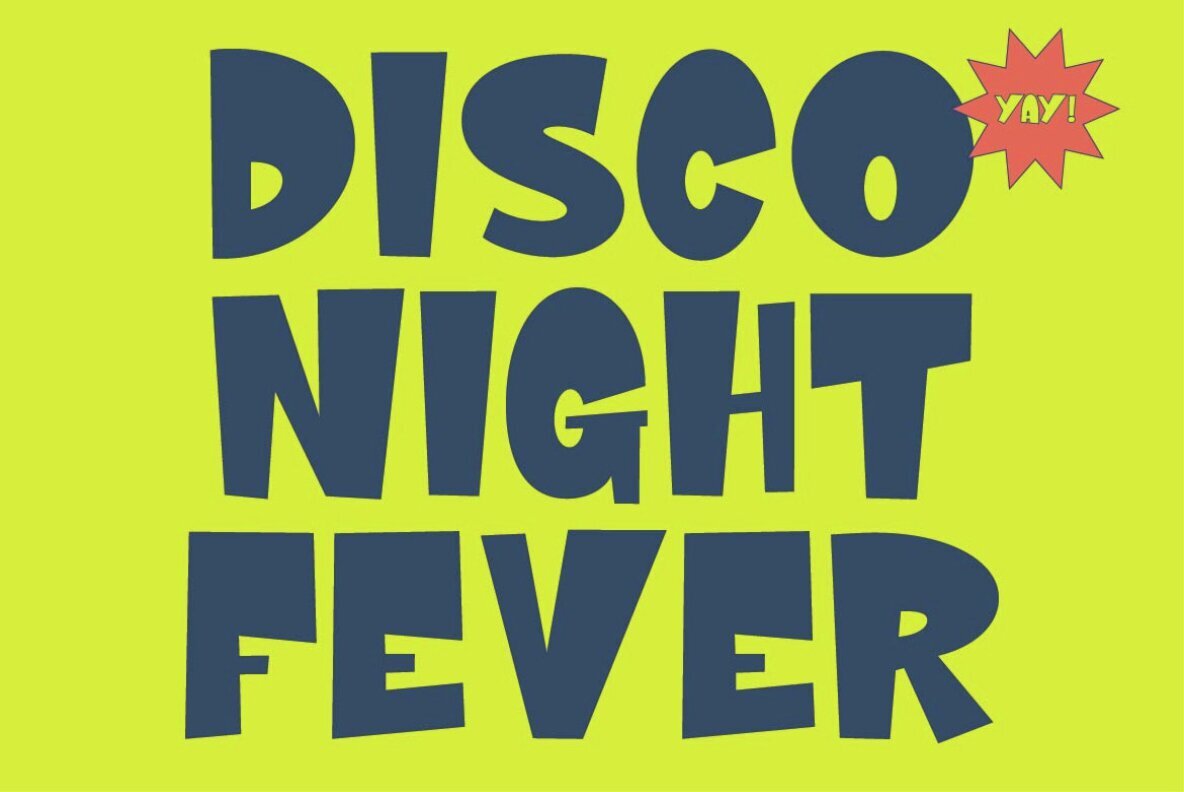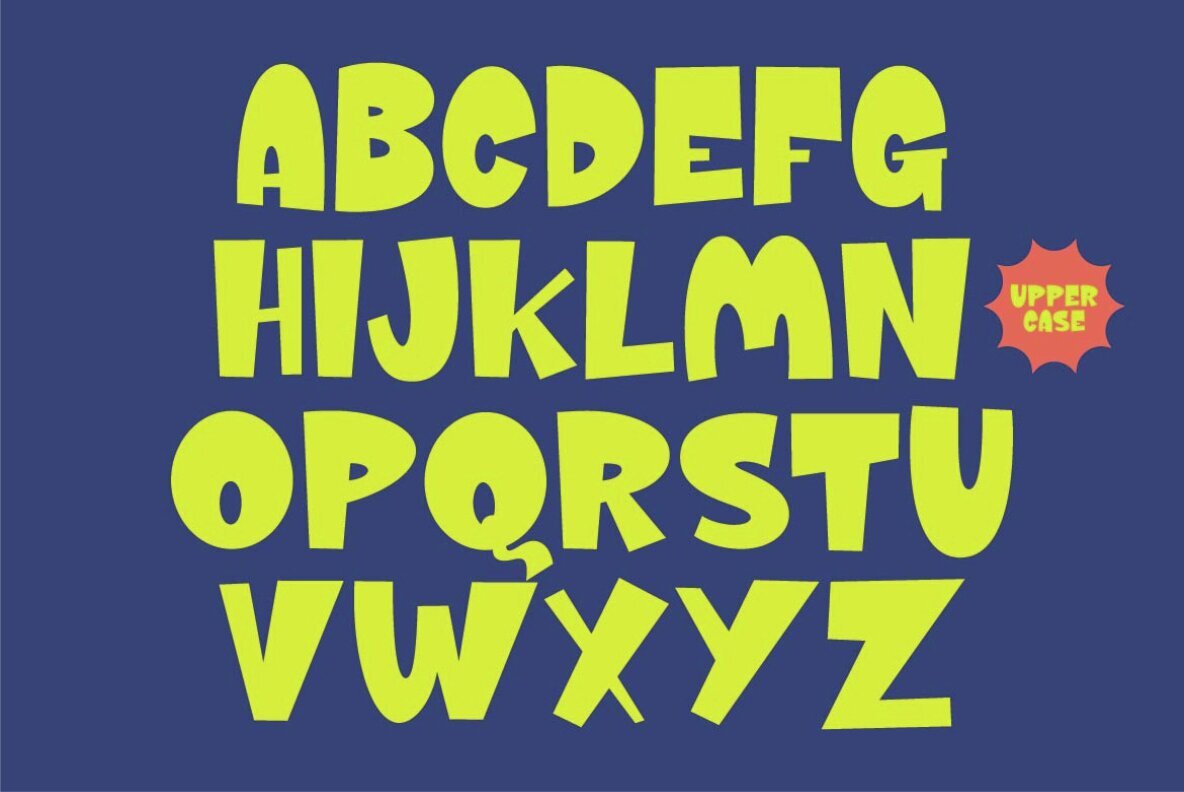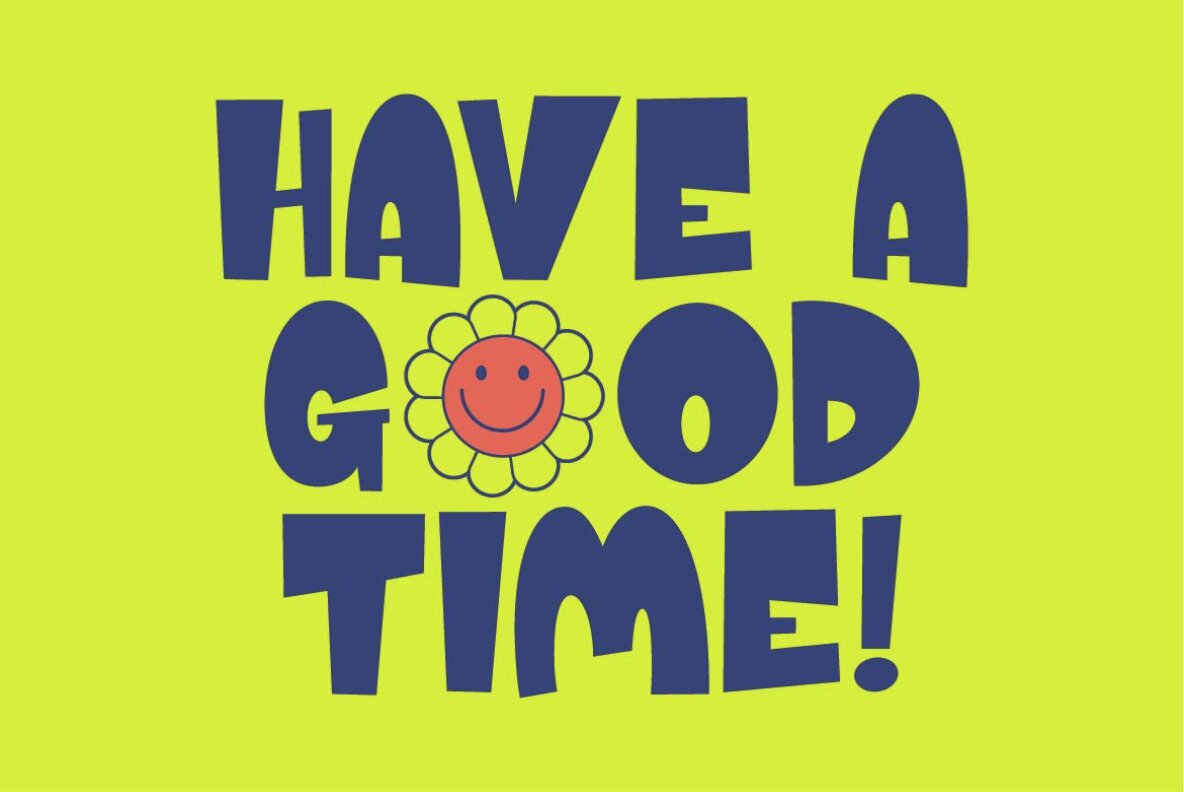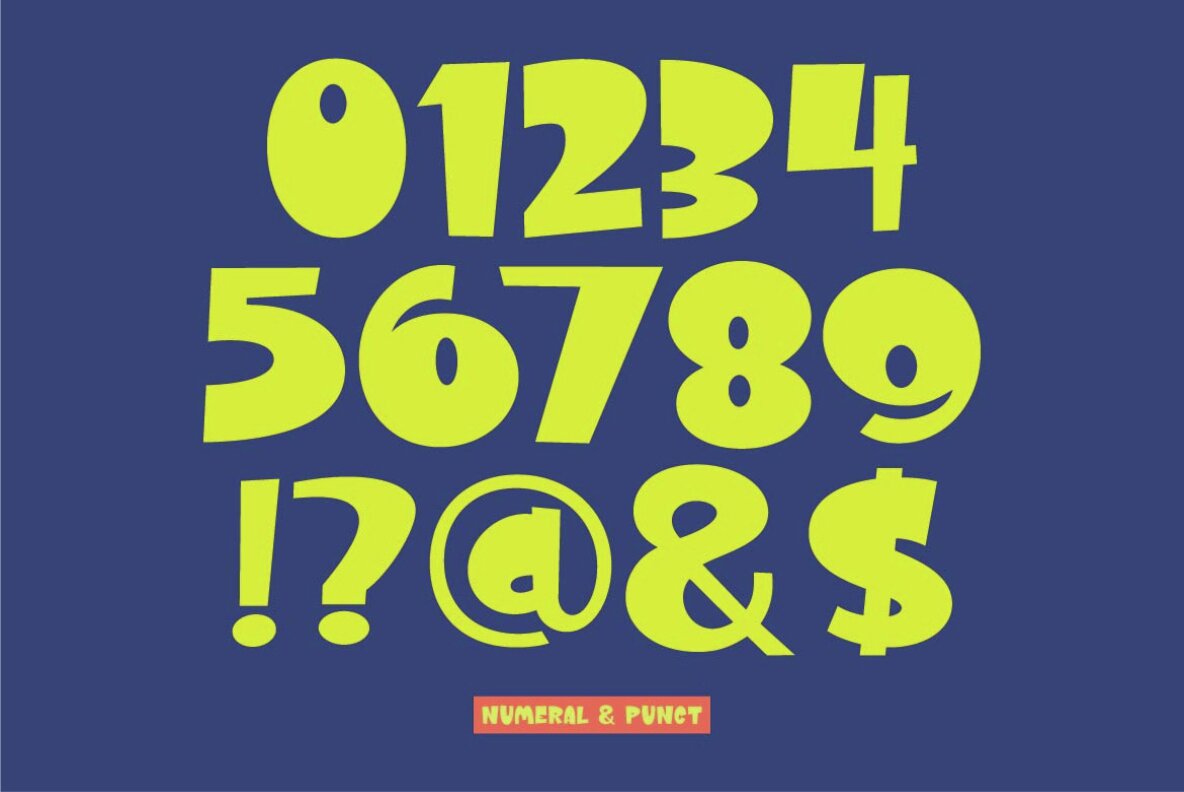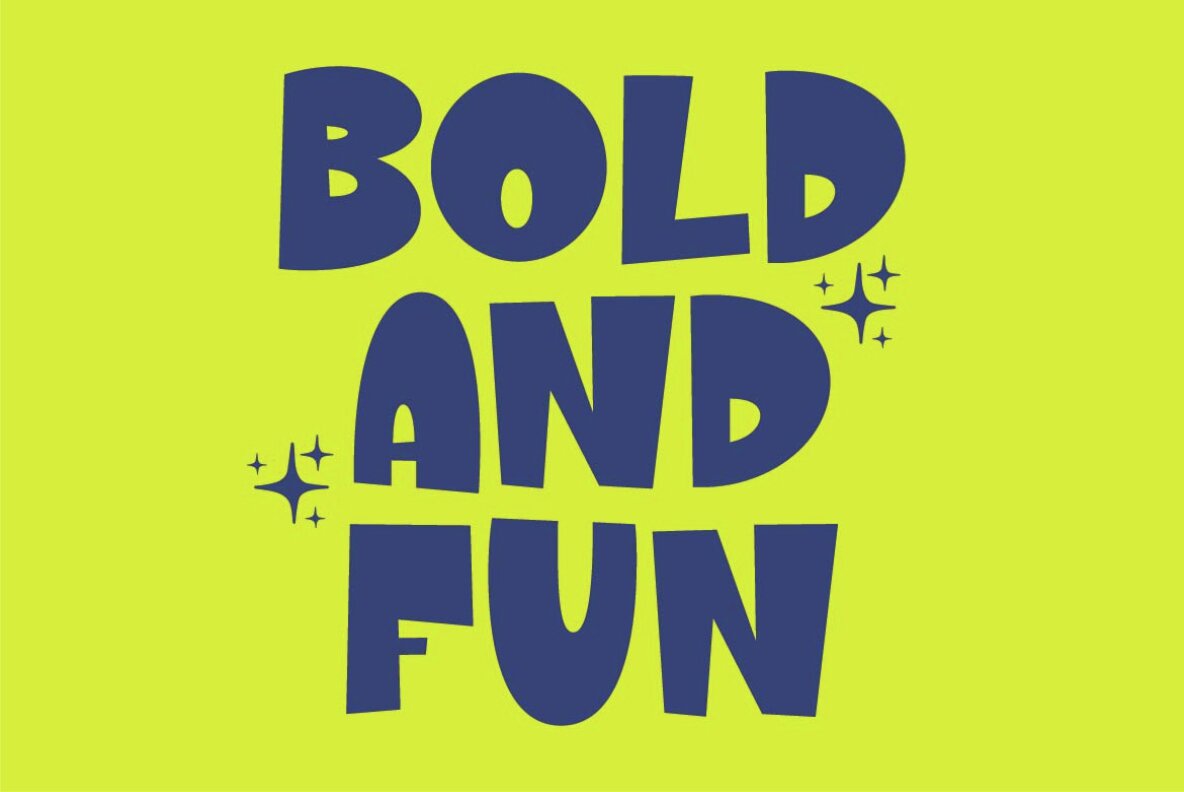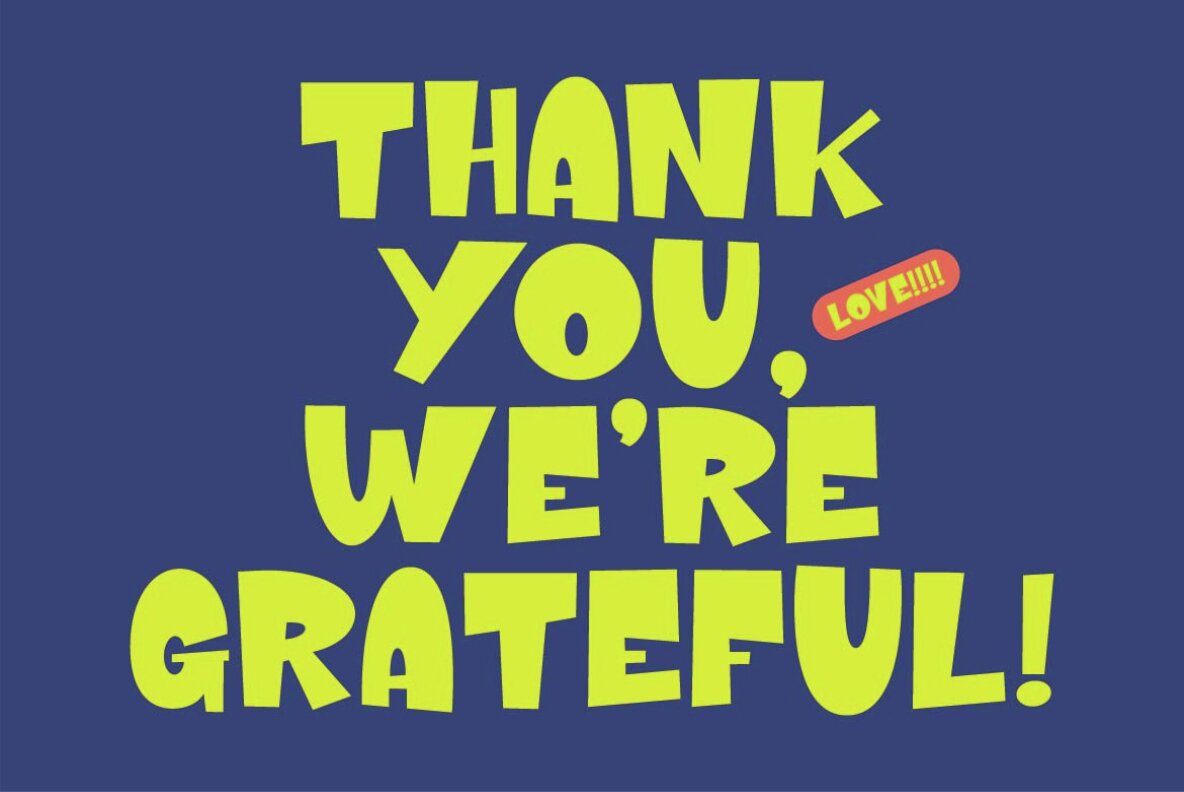
Groovy Piece Font
Groovy Piece Regular
Groovy Piece is a lively and stylish font that embodies a groovy, retro aesthetic. Its characters boast a unique combination of bounce and firmness, creating a dynamic and energetic appearance. The clean lines and subtle playfulness make it ideal for projects seeking a fun-loving and nostalgic vibe. Perfect for posters, branding, and creative designs, Groovy Piece offers a distinctive and vibrant flair that captures a sense of adventure and originality. Embrace the spirit of the past with this versatile and engaging font, perfect for adding a touch of whimsy to your design projects.